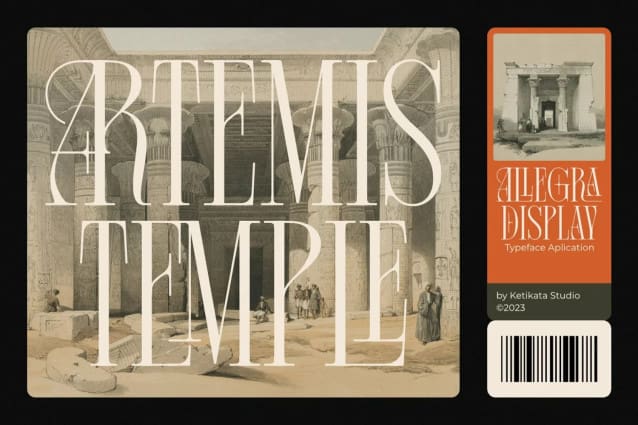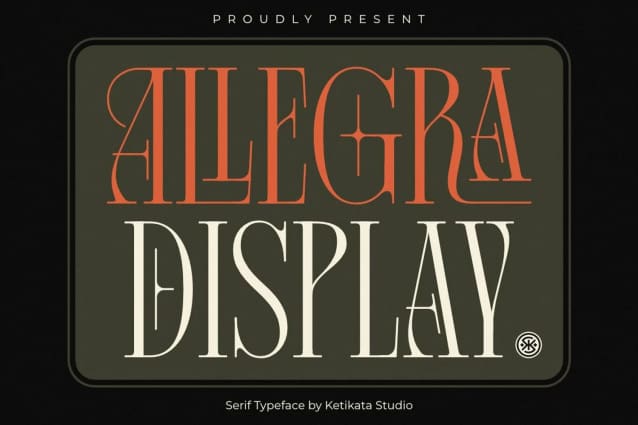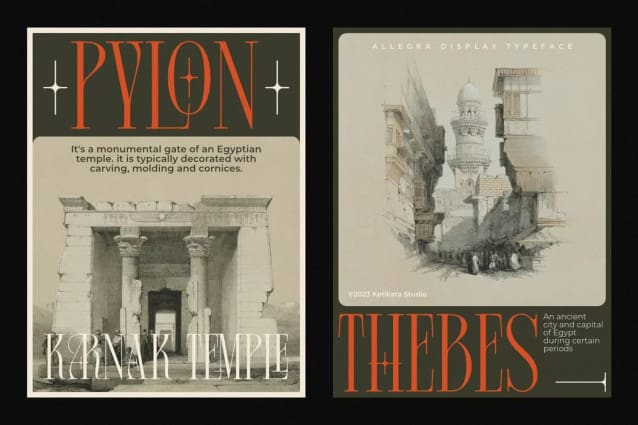
Allegra Font
Allegra Font, a captivating display typeface that exudes tall, sleek, and thin characteristics. This font is meticulously crafted for designers seeking a unique blend of elegance and modernity.